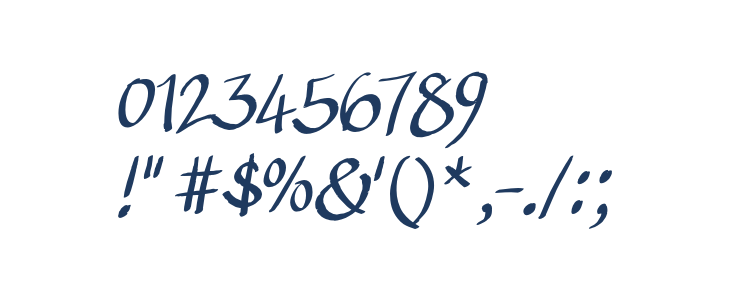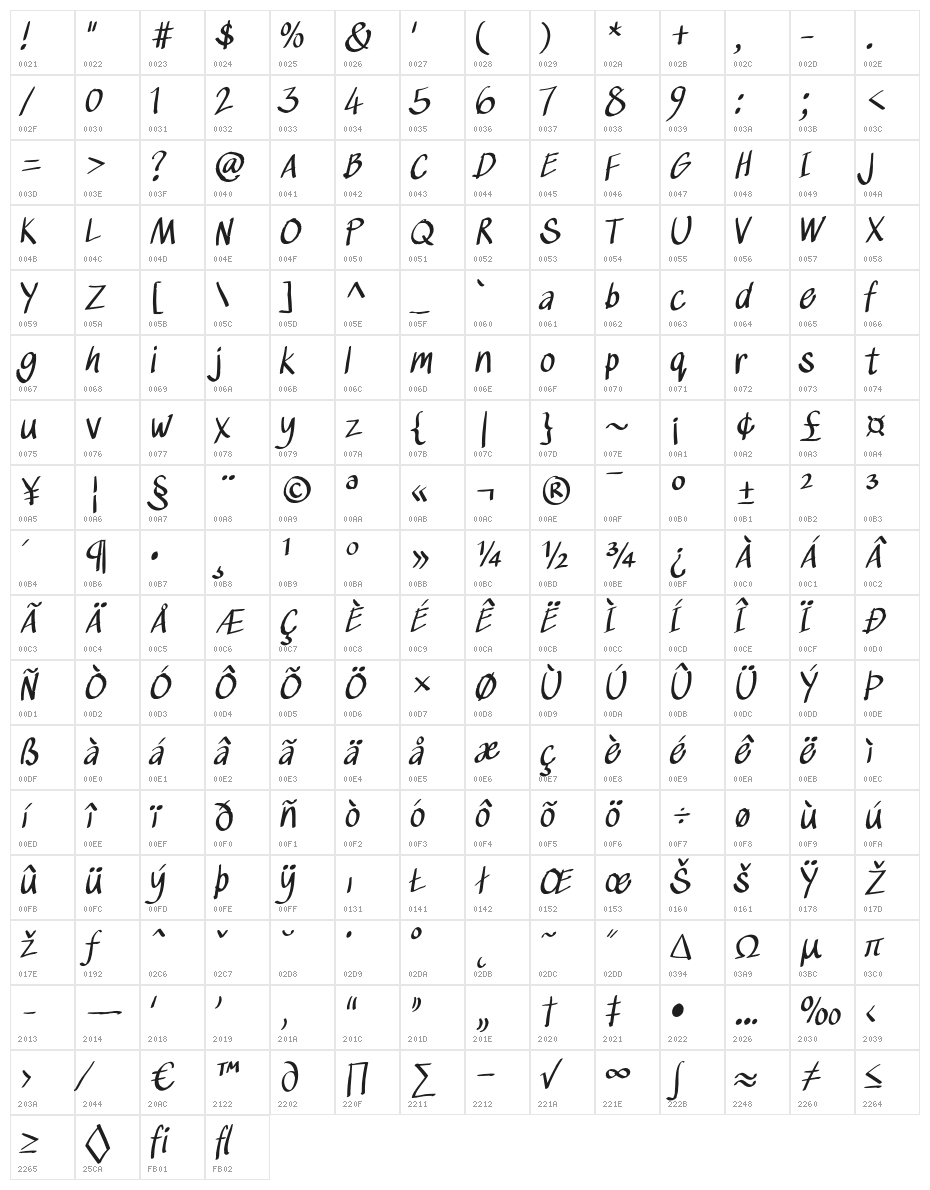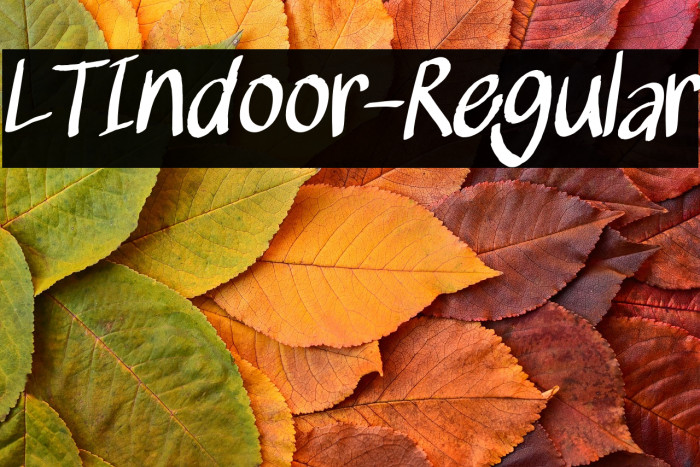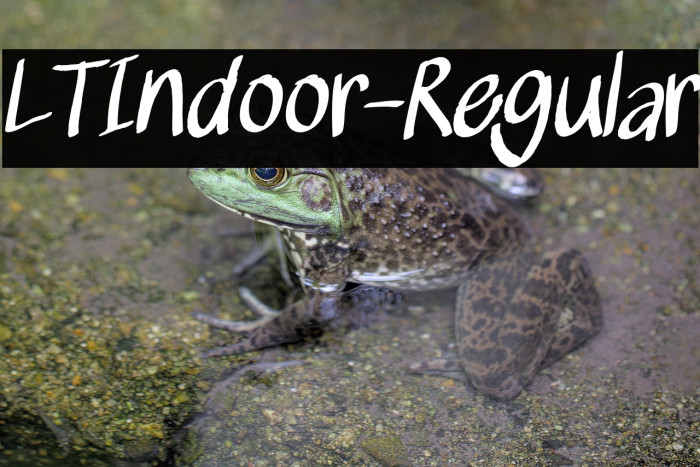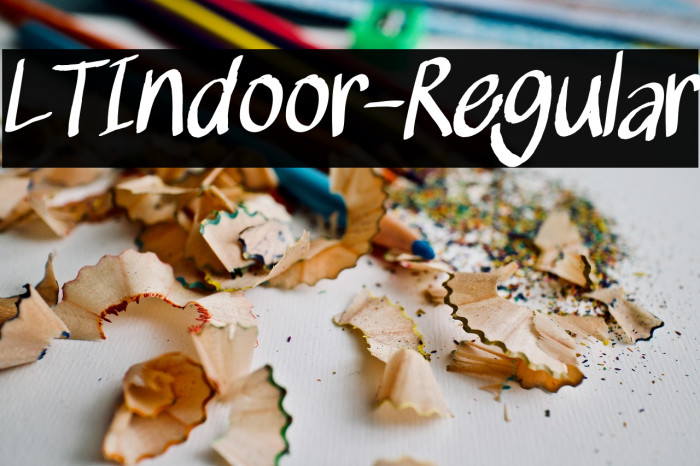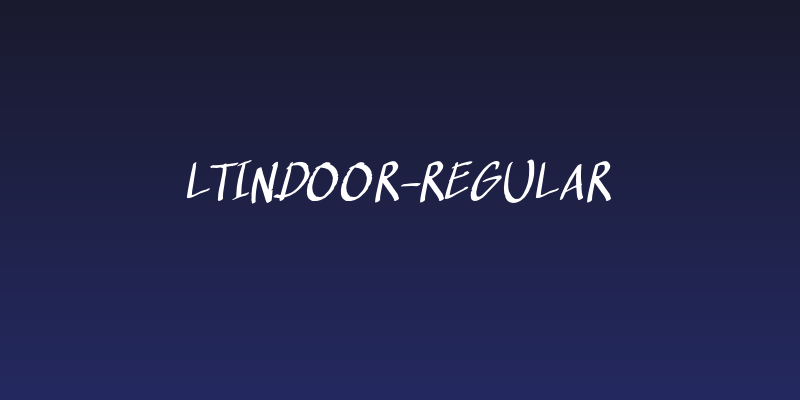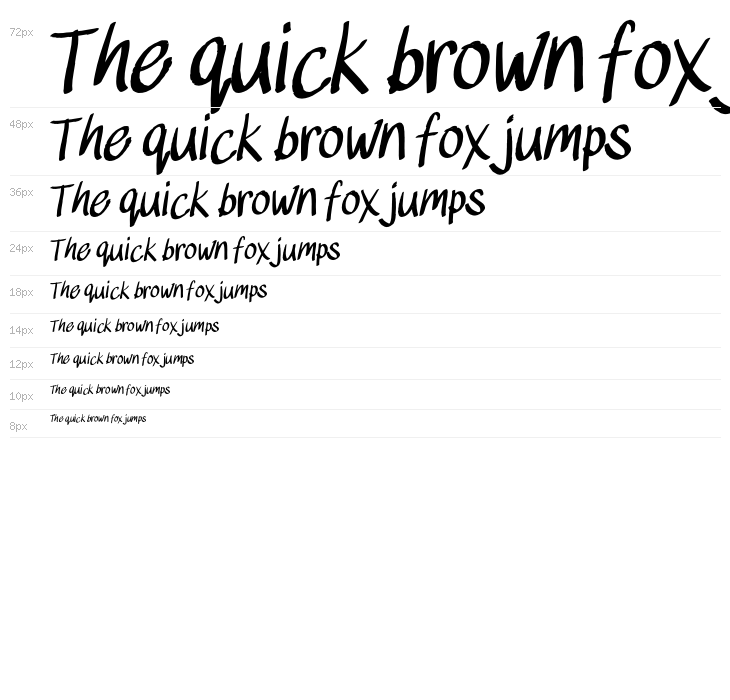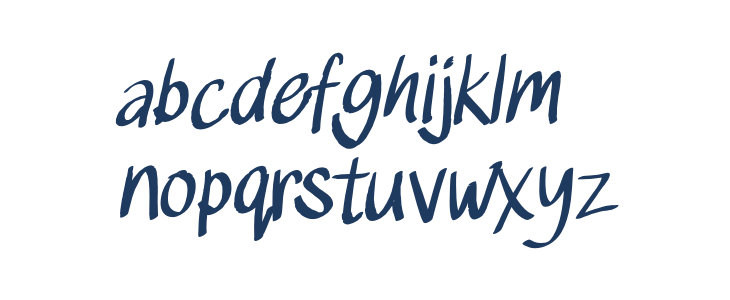
LTIndoor-Regular Font
LTIndoor-Regular Description
This font features a dynamic and energetic handwritten style, characterized by its bold and expressive strokes. The letters are slightly slanted, giving a sense of movement and fluidity. The uppercase characters are bold and prominent, while the lowercase letters maintain a consistent flow with slightly varied stroke widths. The numerals are clear and legible, matching the overall style of the alphabet. Special characters are creatively integrated, maintaining the font's lively and informal aesthetic. This font is ideal for projects that require a personal touch or a casual, yet impactful, visual presence.